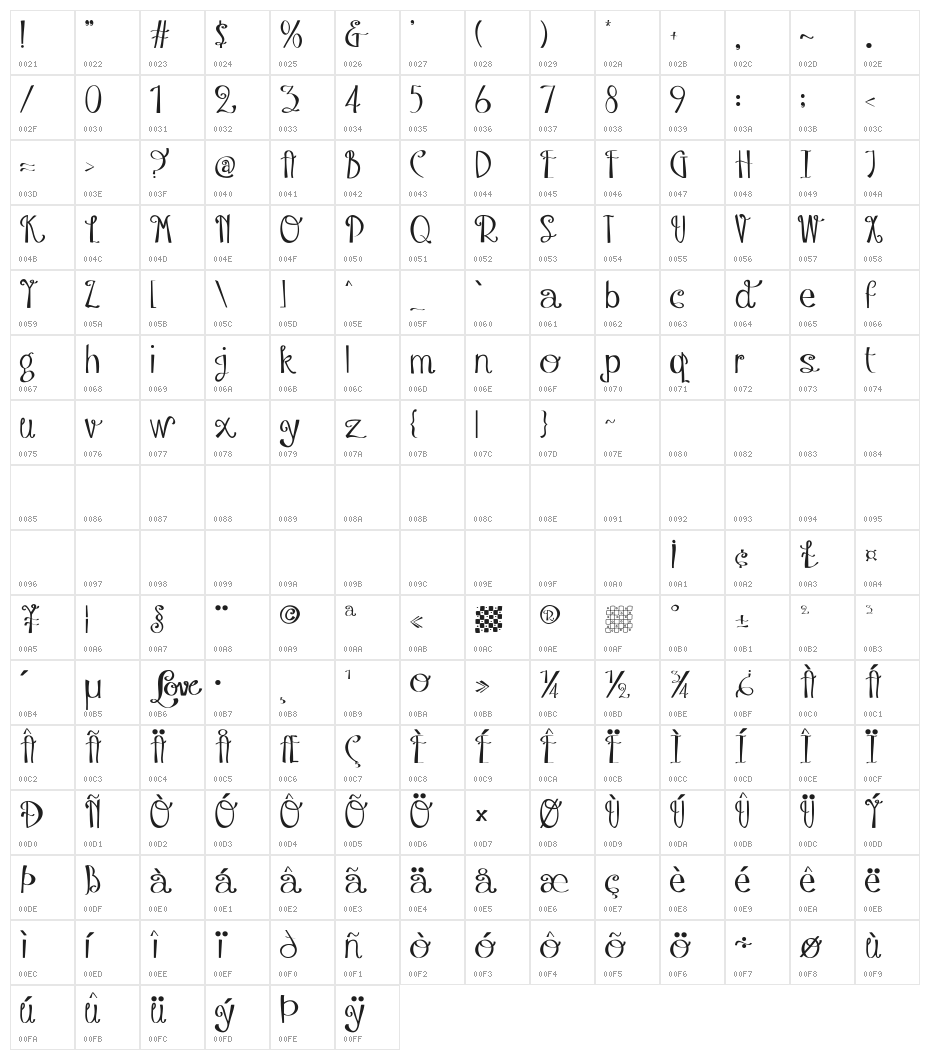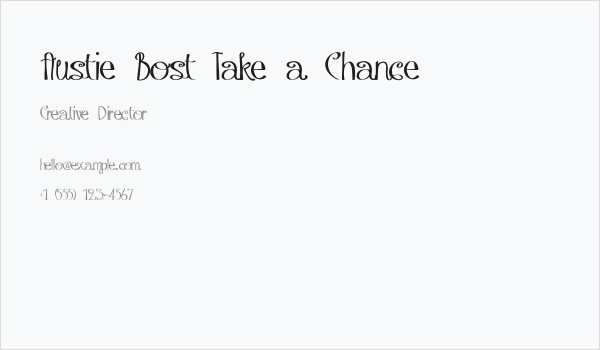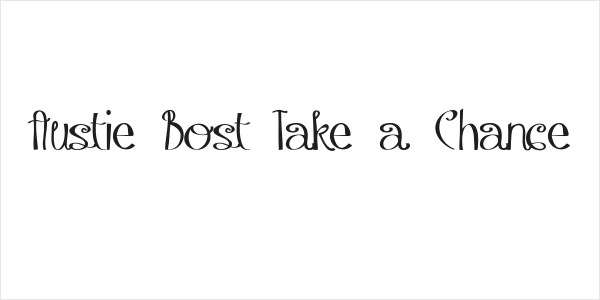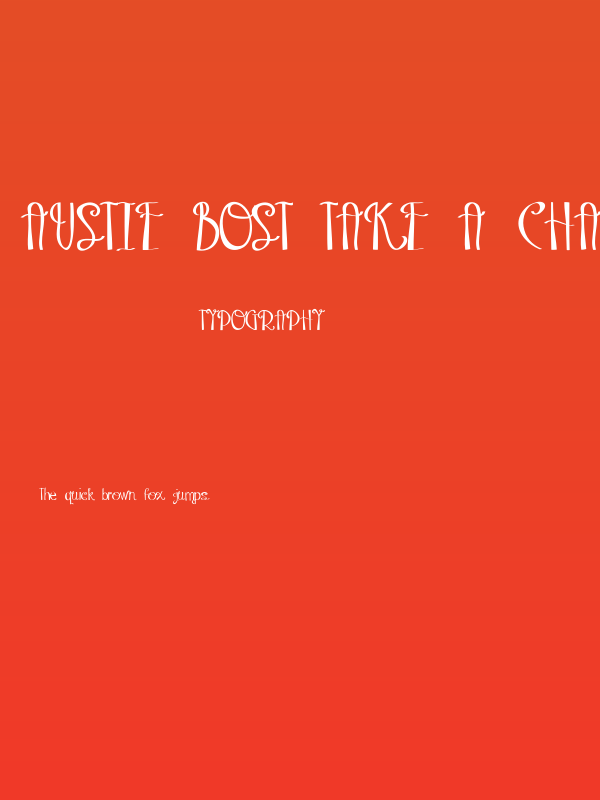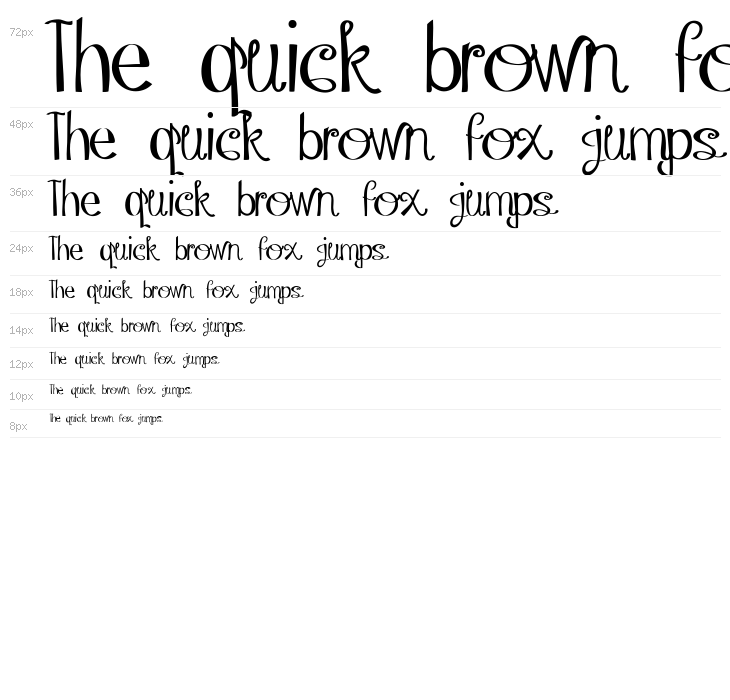
Austie Bost Take a Chance Font
Austie Bost Take a Chance Description
This font features a whimsical and playful design, characterized by its tall, narrow letters with a slight slant. The uppercase letters have a unique flair, with some incorporating subtle curls and loops, adding a touch of elegance. The lowercase letters maintain a consistent style, with rounded edges and a flowing script-like appearance. Numbers and special characters are designed to match the overall playful aesthetic, making them suitable for creative and informal projects. The font's distinct style makes it stand out, offering a blend of fun and sophistication.